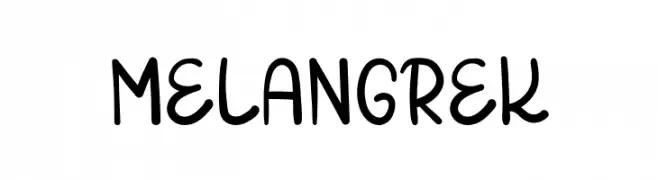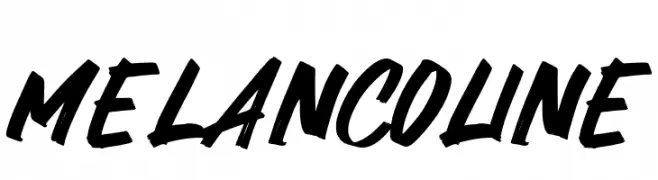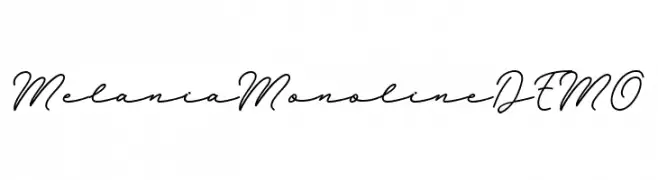
An elegant script font with flowing, interconnected letters and intricate flourishes.
Decorative script font with high contrast and flowing lines.
A playful, hand-drawn font with irregular, blob-like shapes and a whimsical style.
A geometric, maze-like font with a modern, digital aesthetic.
An elegant script font with flowing, decorative strokes.
An elegant, flowing script font with ornate, cursive letterforms.
A tall, angular font with a futuristic and geometric style.
A playful handwritten font with a whimsical and fluid style.
A whimsical and decorative font with swirling, interconnected strokes.
A bold, brush-style font with dynamic and expressive strokes.